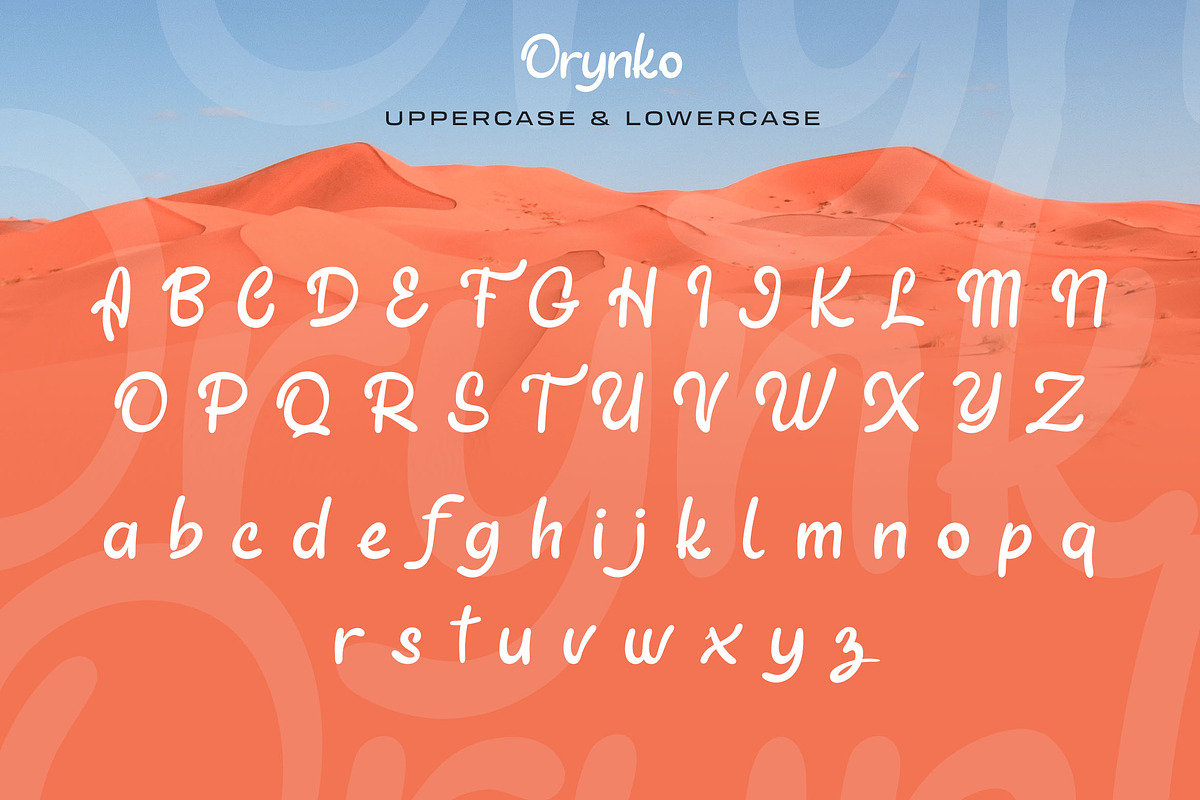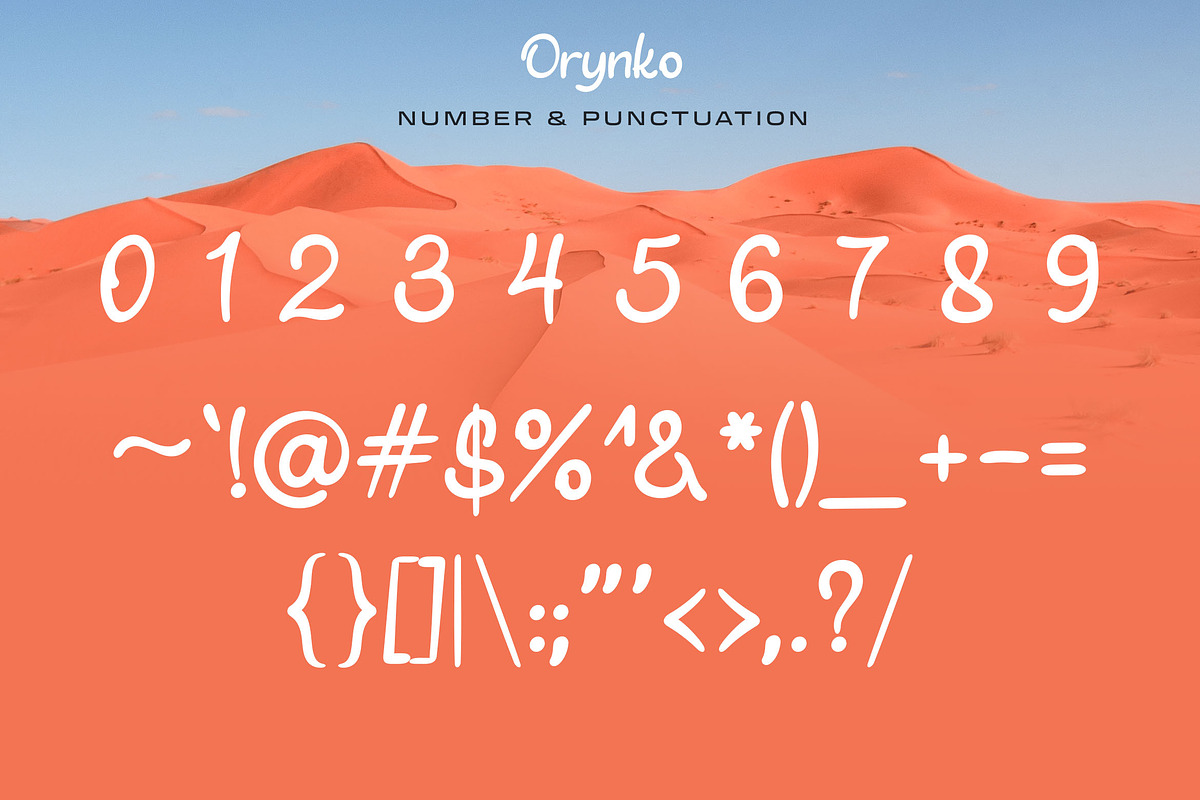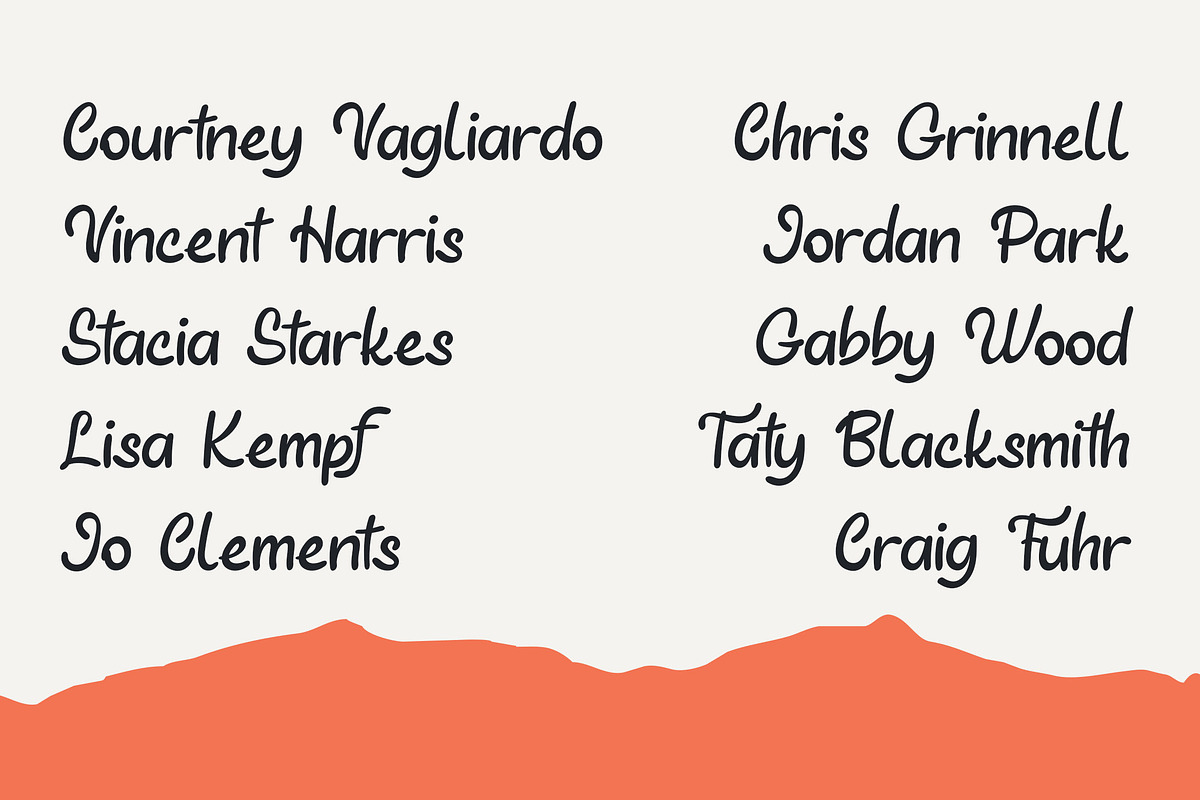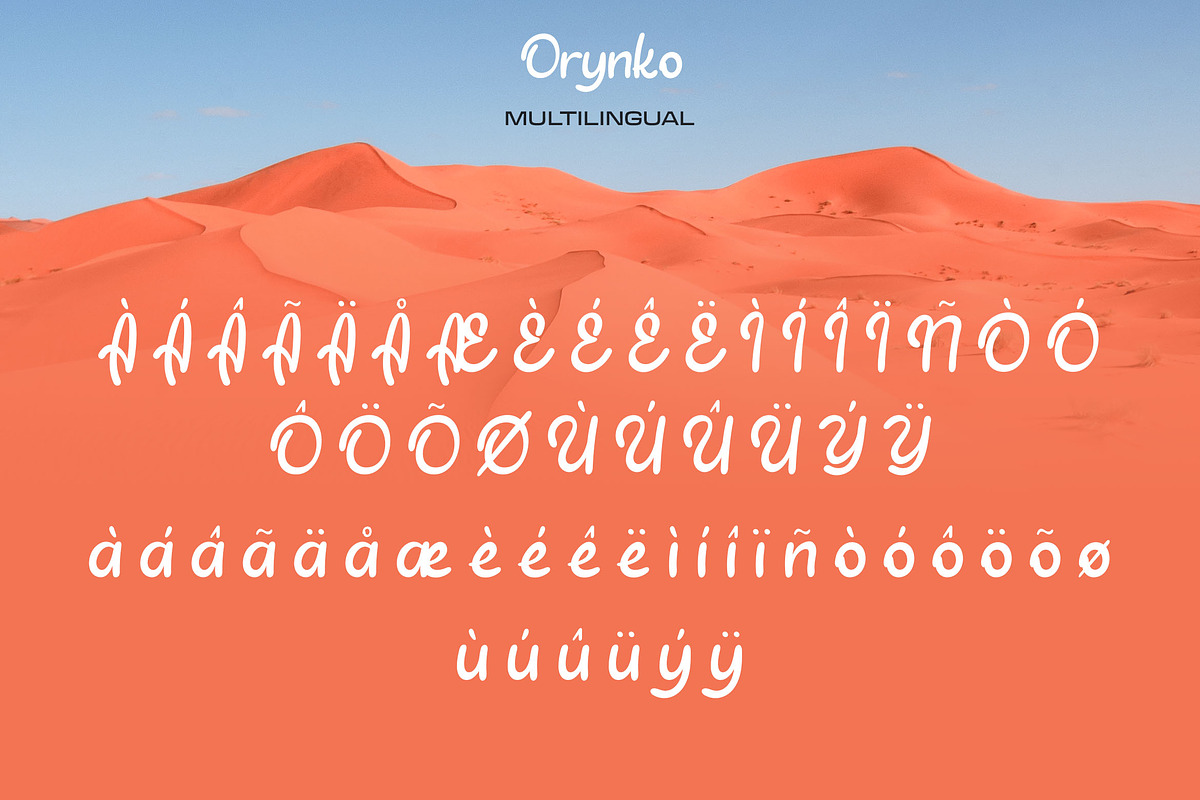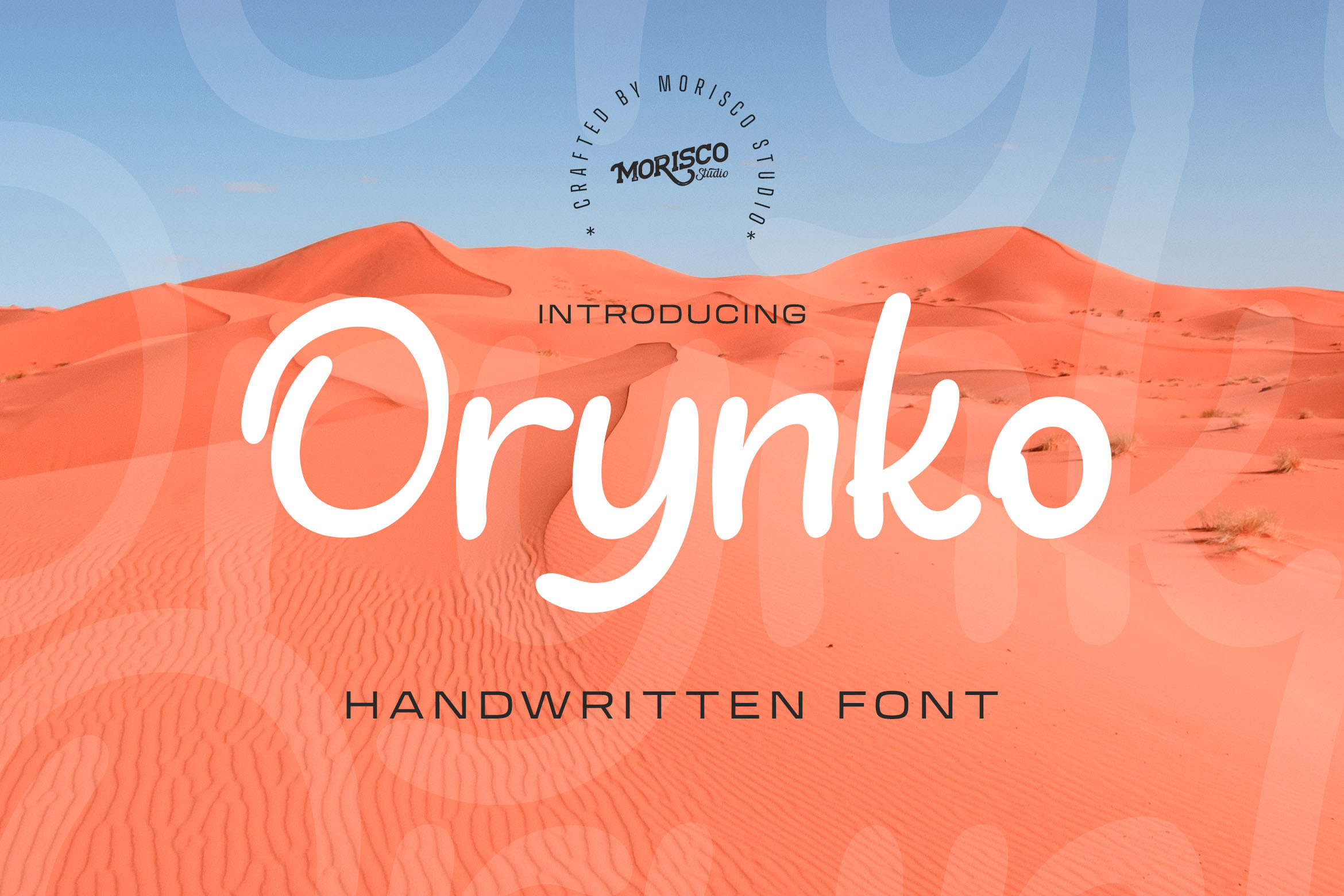
Orynko - Handwritten Font
Orynko is a Handwritten typeface with a unique character designed by Morisco Studio. This typeface is well-suited for headlines and any project, like branding, print templates, logos, and more.
* Uppercase & Lowercase
* Symbols & Punctuation